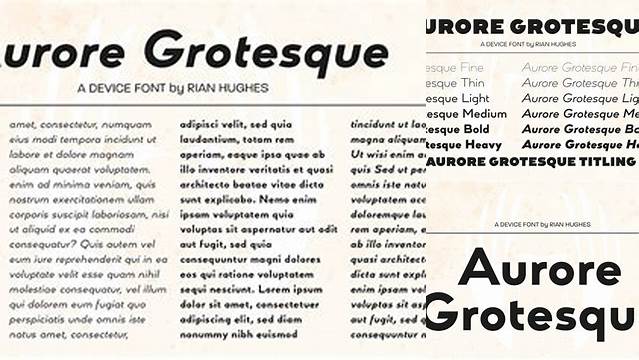
Aurore Grotesque Font: Free Download & Creative Uses
Unveiling the Aurore Grotesque Font: A Typographic Gem
Hey design enthusiasts! Let's talk about a typeface that's been making waves for its unique blend of modern flair and classic sensibilities: the Aurore Grotesque font. If you're on the hunt for that perfect font to elevate your next project, you've come to the right place. This isn't just any font; it's a carefully crafted piece of digital art that can bring a whole new dimension to your designs. When we talk about the Aurore Grotesque font free download, we're opening up a world of possibilities for designers, bloggers, students, and anyone who appreciates good typography. It’s versatile, it’s stylish, and best of all, it can be yours without breaking the bank. In this deep dive, we'll explore what makes this font so special, where you can snag a free download, and how to best utilize its distinctive charm. Get ready to add a seriously cool character to your design toolkit, guys!
Exploring the Distinctive Charm of Aurore Grotesque
So, what exactly sets the Aurore Grotesque font apart from the crowd? It’s all about the details, you know? This font strikes a beautiful balance between geometric precision and a touch of organic warmth, making it incredibly versatile. Unlike some overly rigid geometric sans-serifs, Aurore Grotesque has a personality. Its letterforms are clean and modern, yet they possess a subtle fluidity that prevents them from feeling cold or corporate. Think of its generous x-height and open counters – these elements contribute to its excellent legibility, even at smaller sizes. This means you can use it for everything from massive headlines that need to grab attention to the fine print on a business card. The strokes have a subtle tapering, giving it a humanist touch that feels more approachable than many of its purely geometric cousins. This thoughtful design ensures that while it maintains a contemporary edge, it never sacrifices readability or comfort for the reader. The overall aesthetic is sophisticated without being stuffy, making it a fantastic choice for branding, web design, editorial layouts, and even print materials. Its uniqueness lies in its ability to feel both current and timeless, a tricky feat in the fast-paced world of design.
Mastering Readability with Aurore Grotesque
Readability is king, especially in digital design, and the Aurore Grotesque font really shines in this department. When you download and start using this font, you’ll notice how effortlessly it guides the reader's eye. Its generous spacing between letters (kerning) and words (tracking) is meticulously balanced, preventing text from feeling cramped or overly stretched. This careful attention to detail ensures that blocks of text, whether they’re long-form articles, website copy, or even social media captions, remain comfortable to read. The open apertures in letters like 'a', 'e', and 's' are crucial here; they reduce ambiguity and make each character distinct, which is vital for quick comprehension. Even in smaller sizes, where many fonts can start to blur or lose their definition, Aurore Grotesque maintains its clarity. This makes it a strong contender for user interfaces, app designs, and any project where information needs to be conveyed clearly and efficiently. Consider using it for body text on websites or in printed brochures where you want your message to be easily digestible. Its clean, uncomplicated structure means it won’t distract from your content, allowing your message to take center stage.
Injecting Personality: Aurore Grotesque for Headlines
Now, let's talk about making a statement! While Aurore Grotesque is fantastic for readability, it’s also a powerhouse when it comes to grabbing attention. For headlines, banners, and titles, this font absolutely sings. Its unique character, the subtle quirks in its design, become points of visual interest that draw the eye. Think about using it for the title of a blog post, a striking quote on a poster, or the main heading on a landing page. The slightly unconventional yet harmonious structure of its letterforms can convey a sense of modern sophistication, creativity, or even a touch of playful elegance, depending on how you pair it with other design elements. Strong sans-serifs like Aurore Grotesque are brilliant for conveying a sense of authority and clarity, but the Grotesque aspect adds a layer of individuality. It’s not just another generic sans-serif; it has a distinct voice. Experiment with different weights – if the font family offers bold or black variations, they can be incredibly impactful for short, punchy headlines. The key is to let its inherent style do the talking, ensuring your most important messages get noticed immediately.
Versatility Across Different Design Projects
One of the biggest advantages of the Aurore Grotesque font is its sheer versatility. Seriously, guys, this font isn't a one-trick pony. Whether you're designing a sleek, minimalist website, a vibrant social media campaign, a professional corporate brochure, or even an eye-catching book cover, Aurore Grotesque can adapt. Its clean lines and modern aesthetic lend themselves well to minimalist and contemporary designs. However, the subtle humanist touches prevent it from feeling sterile, allowing it to integrate seamlessly into projects with a warmer or more organic feel. For branding, it can project an image of professionalism and innovation. In editorial design, it offers excellent readability for body text while providing stylish options for headings and pull quotes. Think about using it for app interfaces where clarity is paramount, or for packaging design where it needs to stand out on a crowded shelf. The key is understanding the mood you want to convey. Aurore Grotesque can be serious and sophisticated, or it can be approachable and friendly, all depending on the context and accompanying design elements. This adaptability is what makes it a truly valuable asset in any designer's arsenal, offering a reliable and stylish option for a wide array of applications.
The Grotesque Style Explained: What Makes it Unique?
Let's break down the term